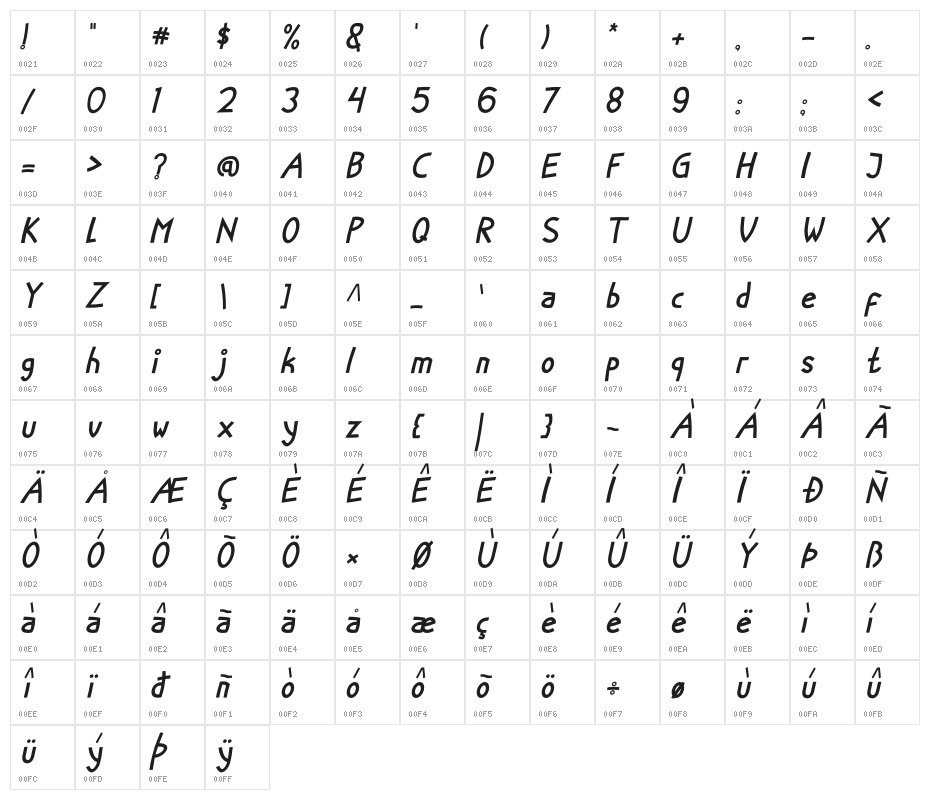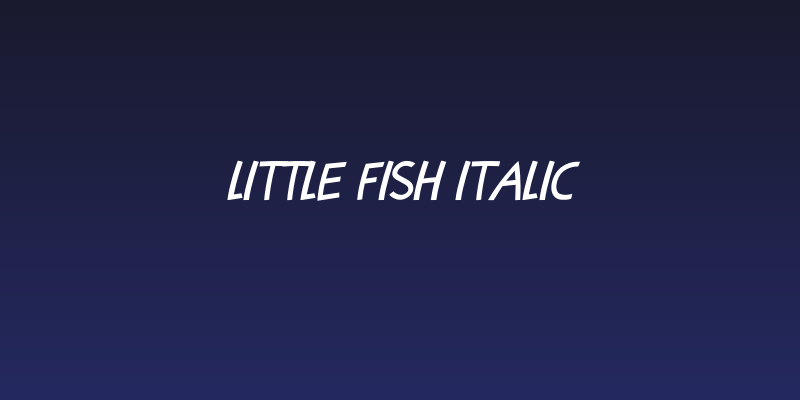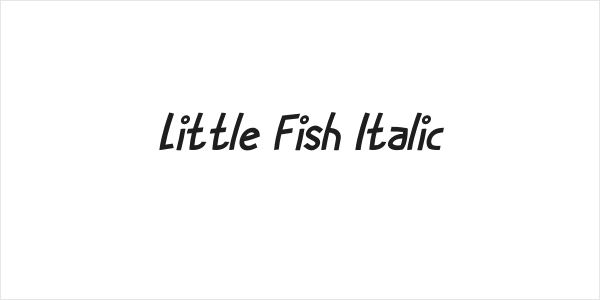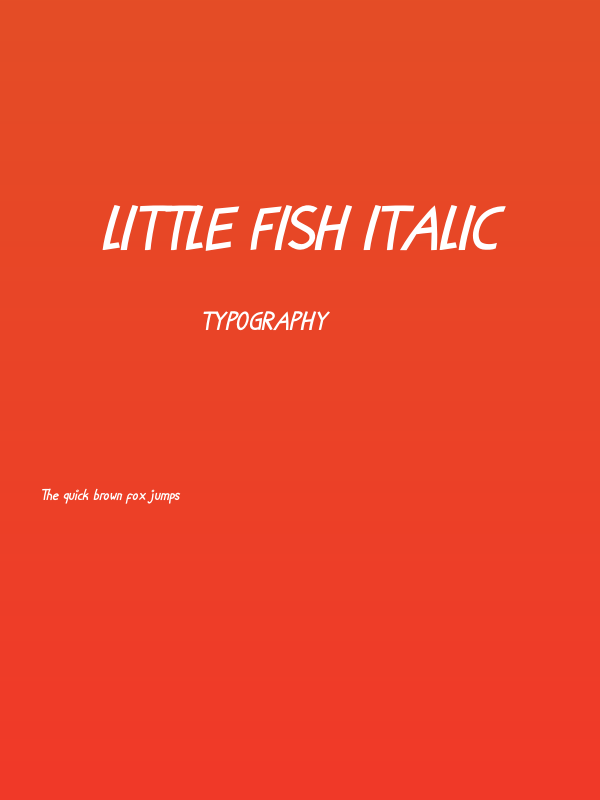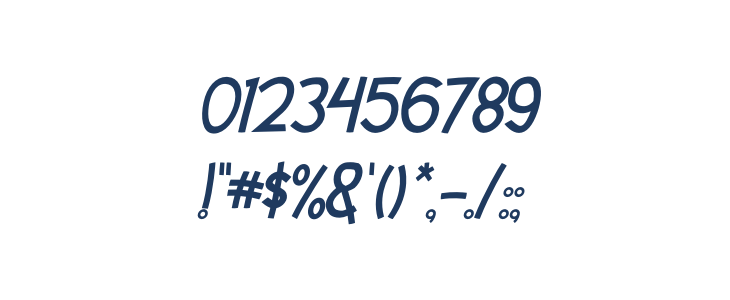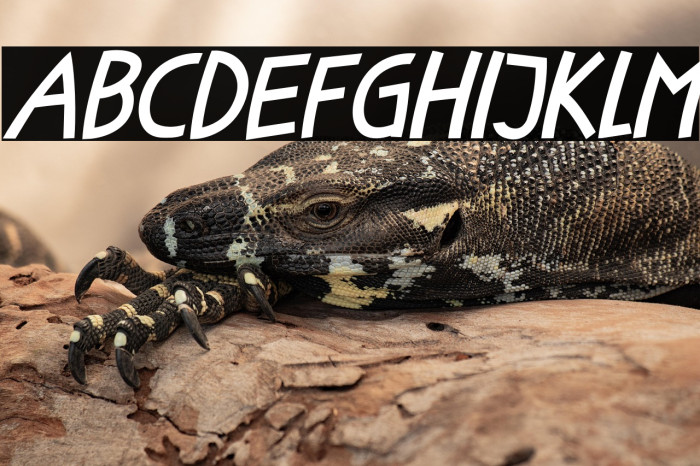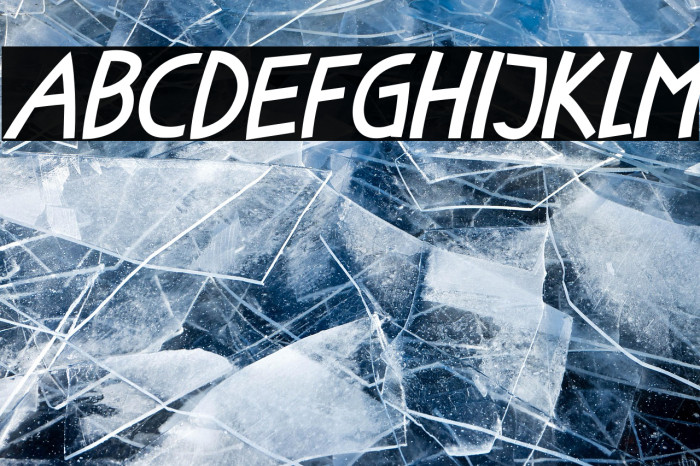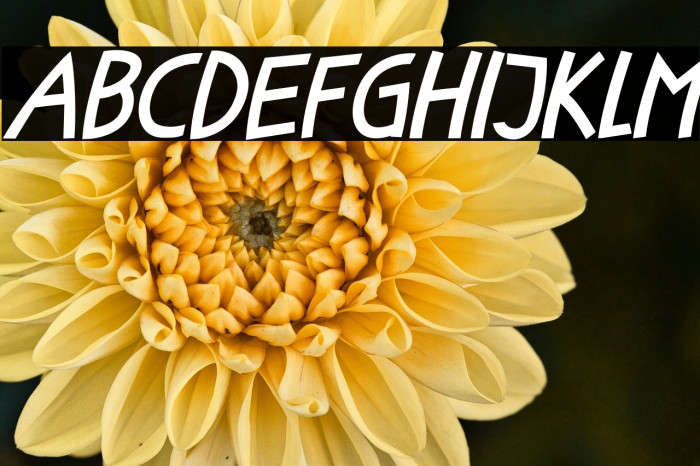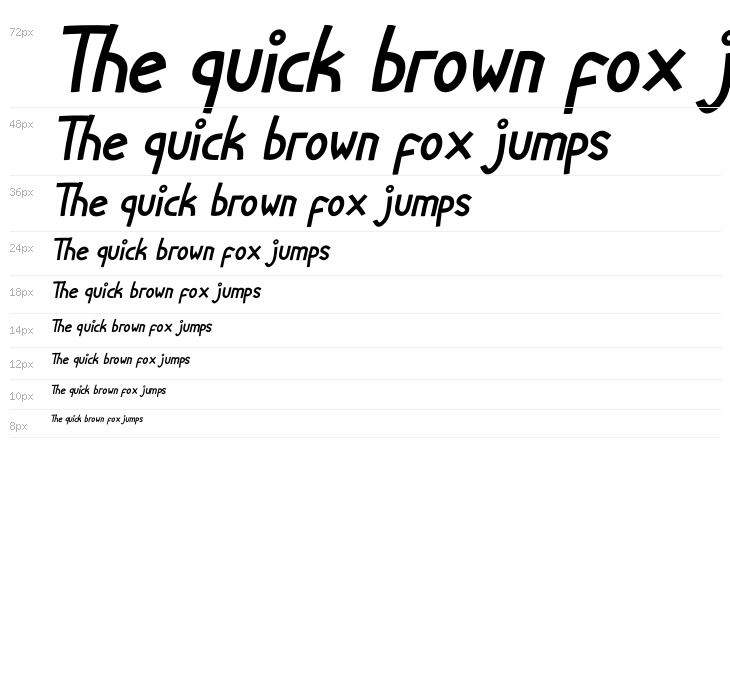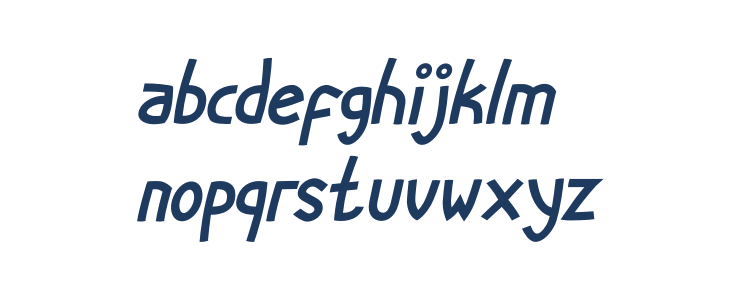
Little Fish Italic Font
Little Fish Italic Description
This font features a playful and dynamic style with a slight slant, giving it an italicized appearance. The characters are bold and have a handwritten quality, with smooth curves and a consistent stroke width. The uppercase letters are slightly taller than the lowercase, adding to its informal and friendly look. The numerals and special characters maintain the same playful aesthetic, making it suitable for creative and casual designs.
| Proposed Projects | Ideal for children's book covers, playful branding, greeting cards, and informal invitations. |